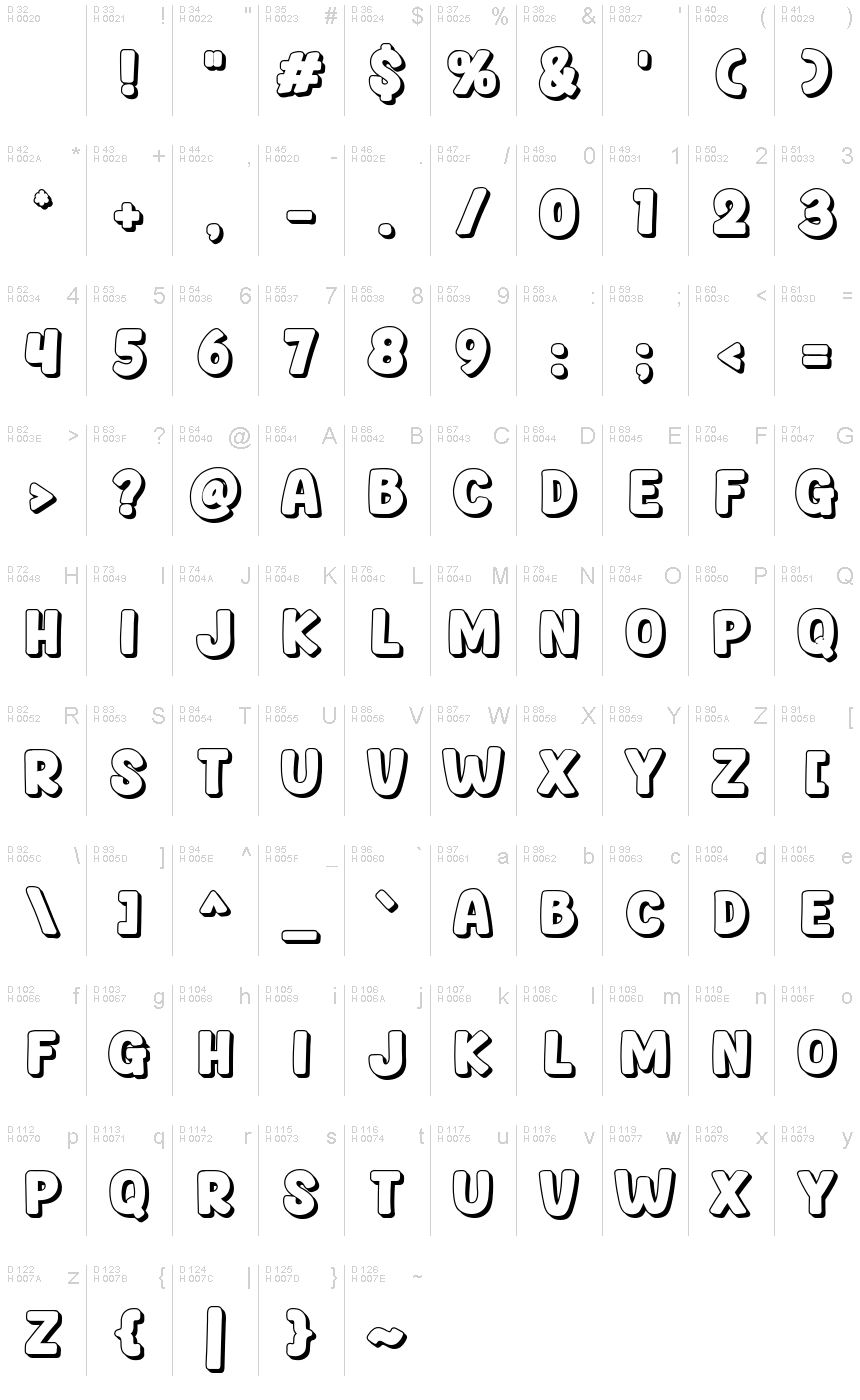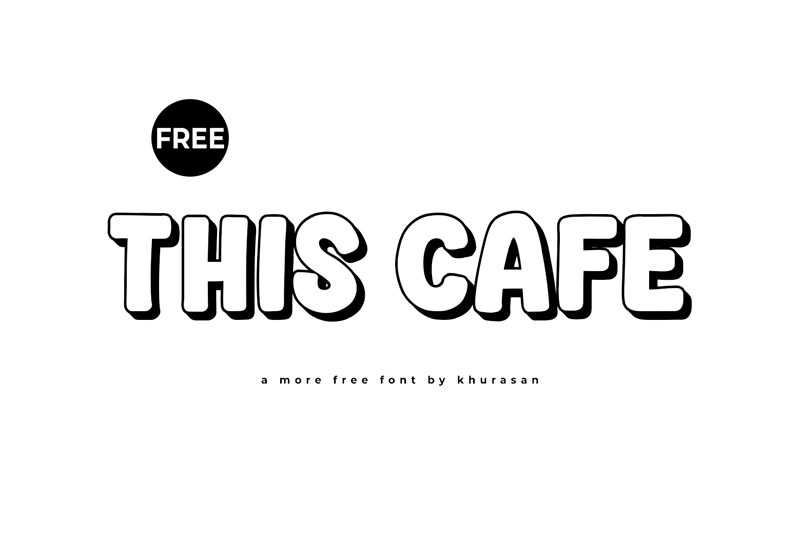
This Cafe
This Cafe by Khurasan is a vibrant, bold display font that exudes playful charm and whimsical appeal. Its cartoonish style immediately captures attention with its bubbly, exaggerated characters and smooth, rounded edges, perfect for adding a fun twist to any project. The bold weight ensures strong visibility, making it an excellent choice for headlines, logos, and signage.
This spirited font seamlessly blends creativity with readability, making it ideal for children's books, cafes, event posters, or any design seeking a touch of lightheartedness. Turn ordinary text into eye-catching visual statements with This Cafe's unique personality that effortlessly brings joy and character to your designs.